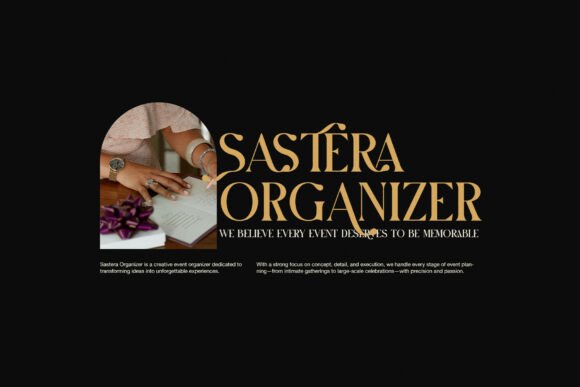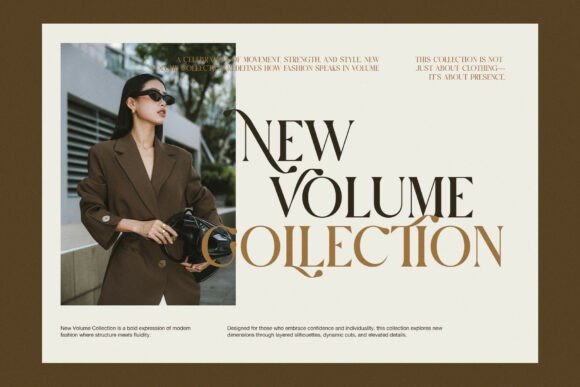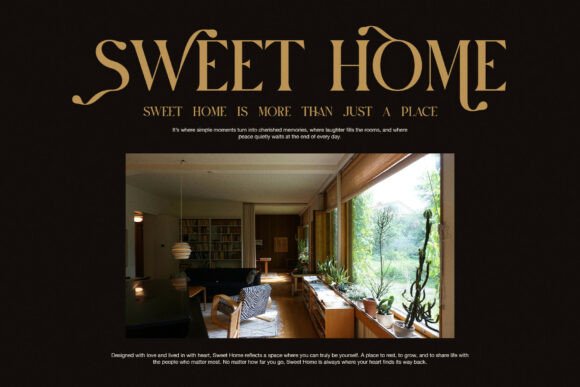
Boxser is an elegant serif font designed to express warmth, balance, and refined simplicity.
Inspired by modern editorials and calm visual storytelling, Boxer blends classic serif structure with smooth curves and gentle contrast As a result, it creates typography that feels tasteful, relaxed, and quietly confident.
Boxser Font offers exceptional quality and versatility, making it a valuable addition to your design toolkit. Whether you’re creating for personal projects or commercial use, Boxser Font delivers professional results.